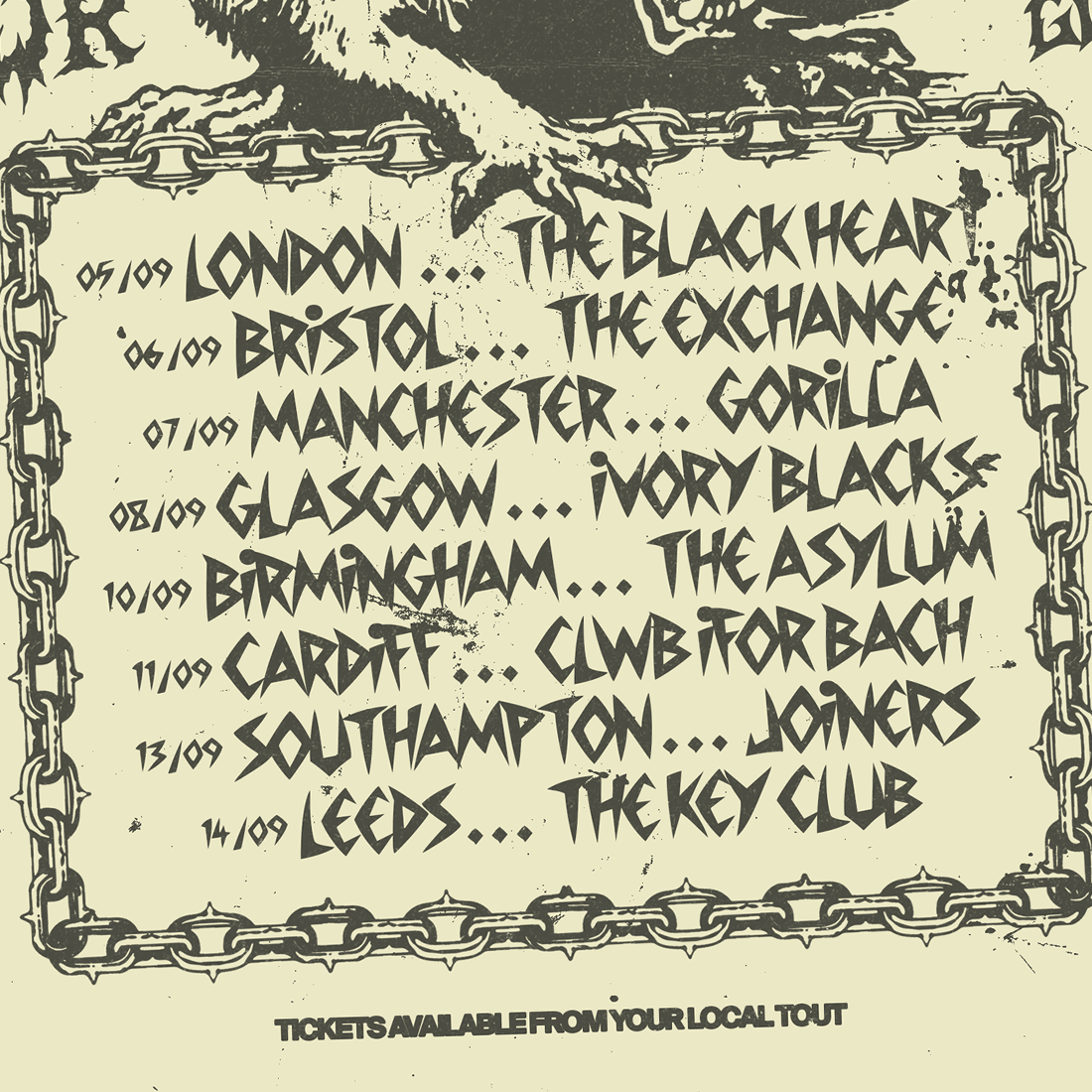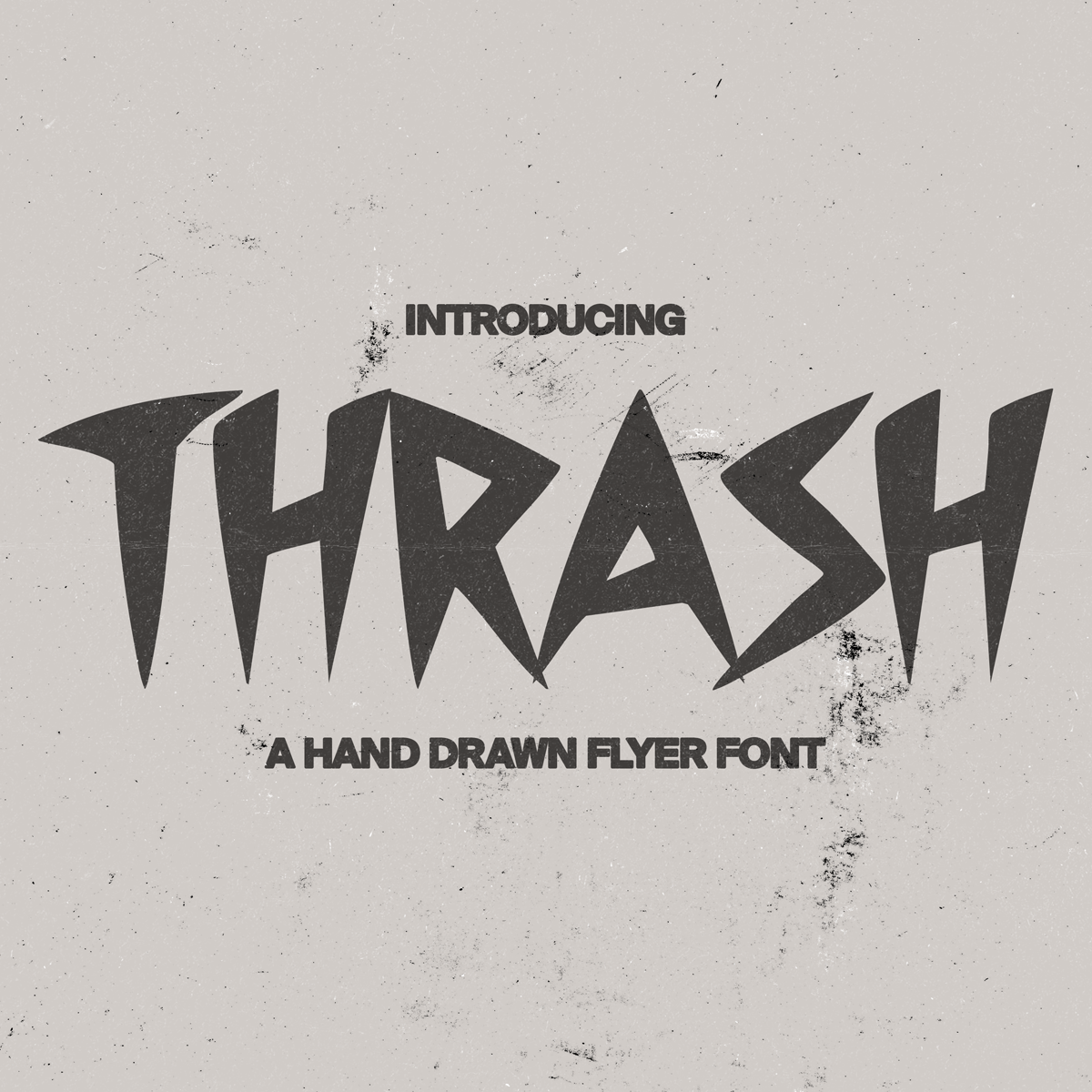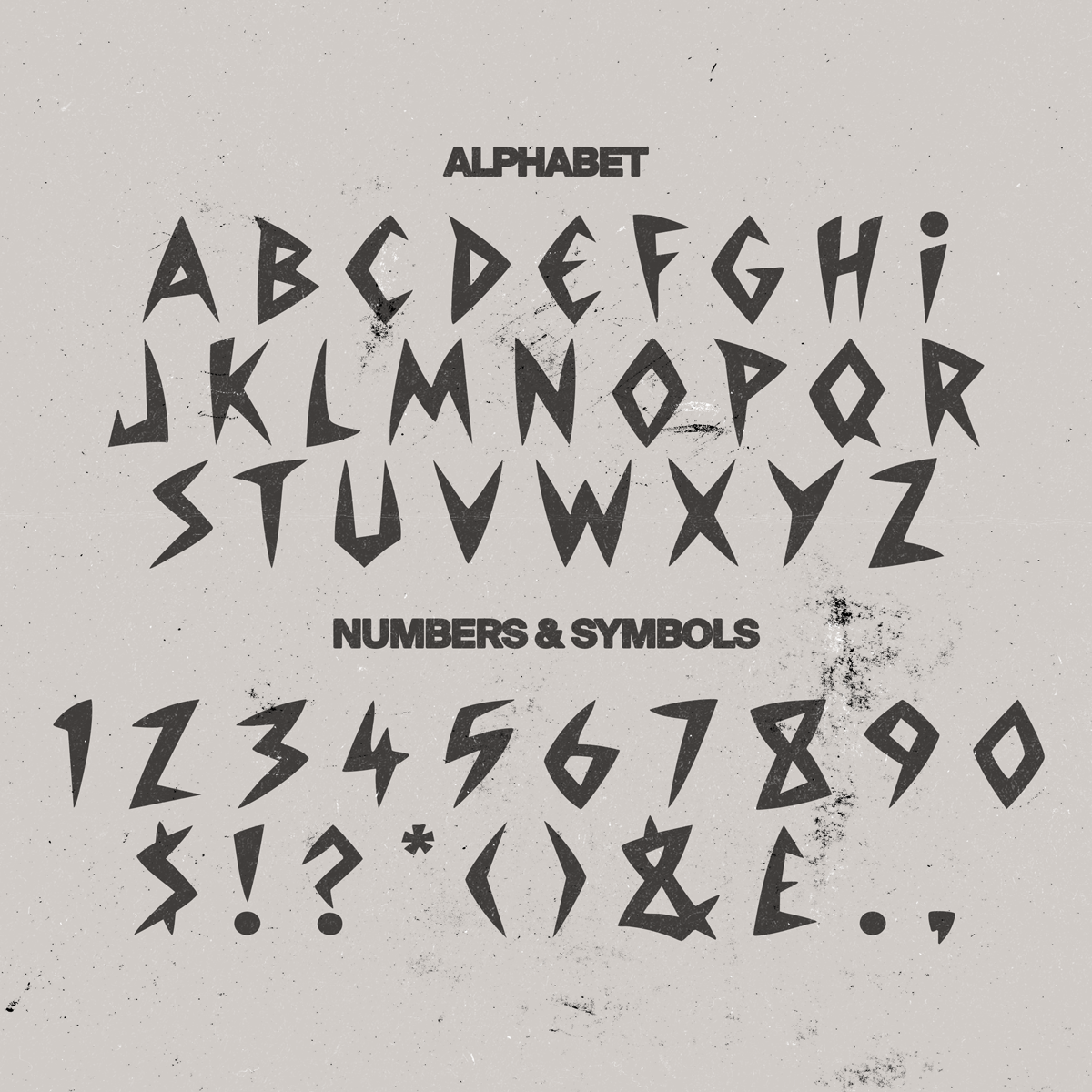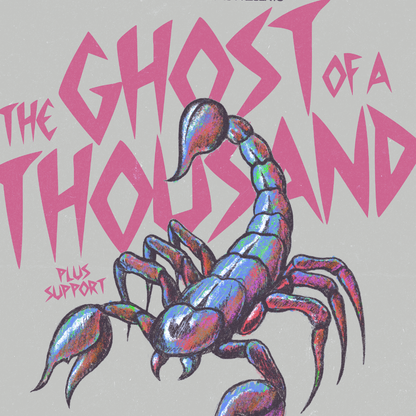
Thrash is one of my "Flyer Fonts" series. A hand drawn font inspired by old school hardcore gig flyers.
Full Alphabet (Uppercase only)
Numbers and select limited symbols